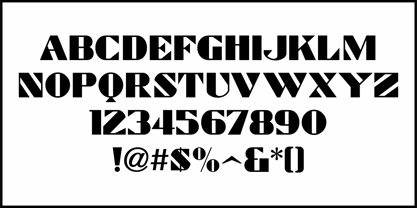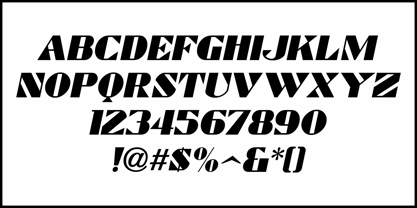
Film Studio JNL
by Jeff Levine
In the February 11, 1933 issue of Hollywood Filmograph was an ad for Projectionist's Union Local 150, I.A.T.S.E.
The union was announcing how many theaters listed within the ad were now fair to their members and employed them, further stating those theaters were now deserving of their members' patronage.
The bulk of the lettering was set in one of the era's many Art Deco typefaces that took their cue from Futura Black but had their own distinct design personality.
This particular font is now available digitally as Film Studio JNL in both regular and oblique versions.